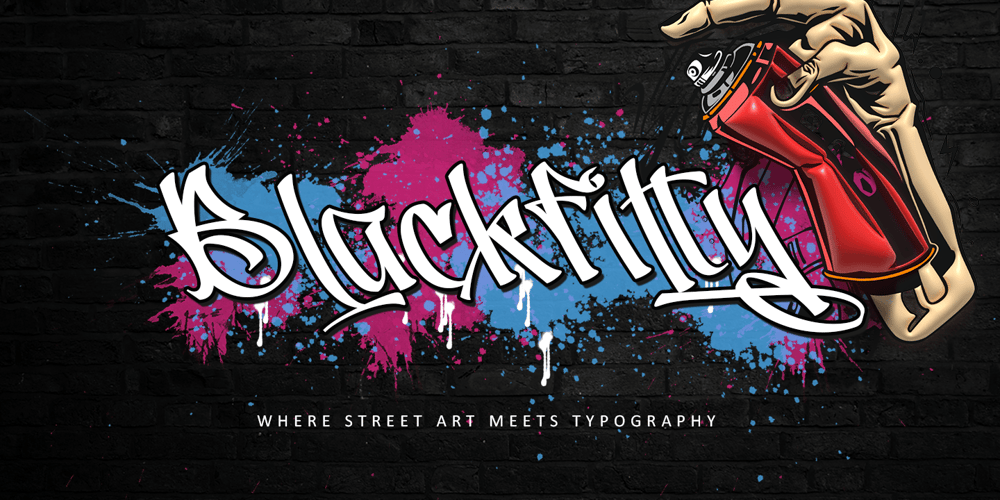
Blackfitty Font Family was designed by Thomas Aradea and published by Letterara. Blackfitty contains 2 styles and family package options. Blackfitty, a rebellious graffiti-inspired font, breaks the mold with its bold and daring design. This captivating typeface blends urban edge with artistic flair, perfect for adding a gritty vibe to your projects. Ideal for street art-inspired designs, murals, branding, band logos, apparel, YouTube, and more, Blackfitty’s PUA encoding grants easy access to all the unique glyphs and swashes, promising remarkable and edgy results for your creative ventures.